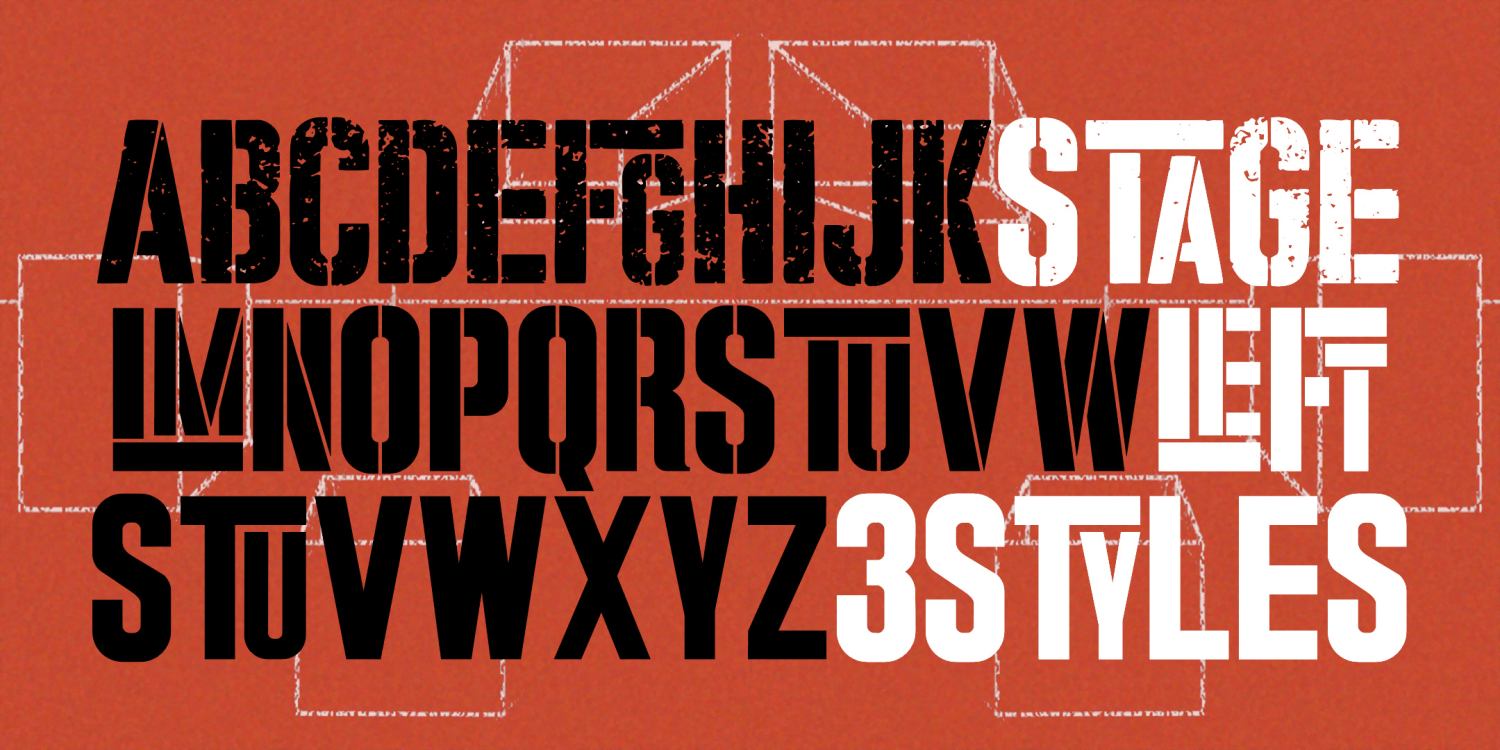
Stage Left
About Stage Left
Stage Left was inspired by the iconic poster for the movie version of "West Side Story." Designed by Joe Caroff (not Saul Bass as is often stated), the poster suggests a gritty but playful urban energy. It's basically large and small caps…